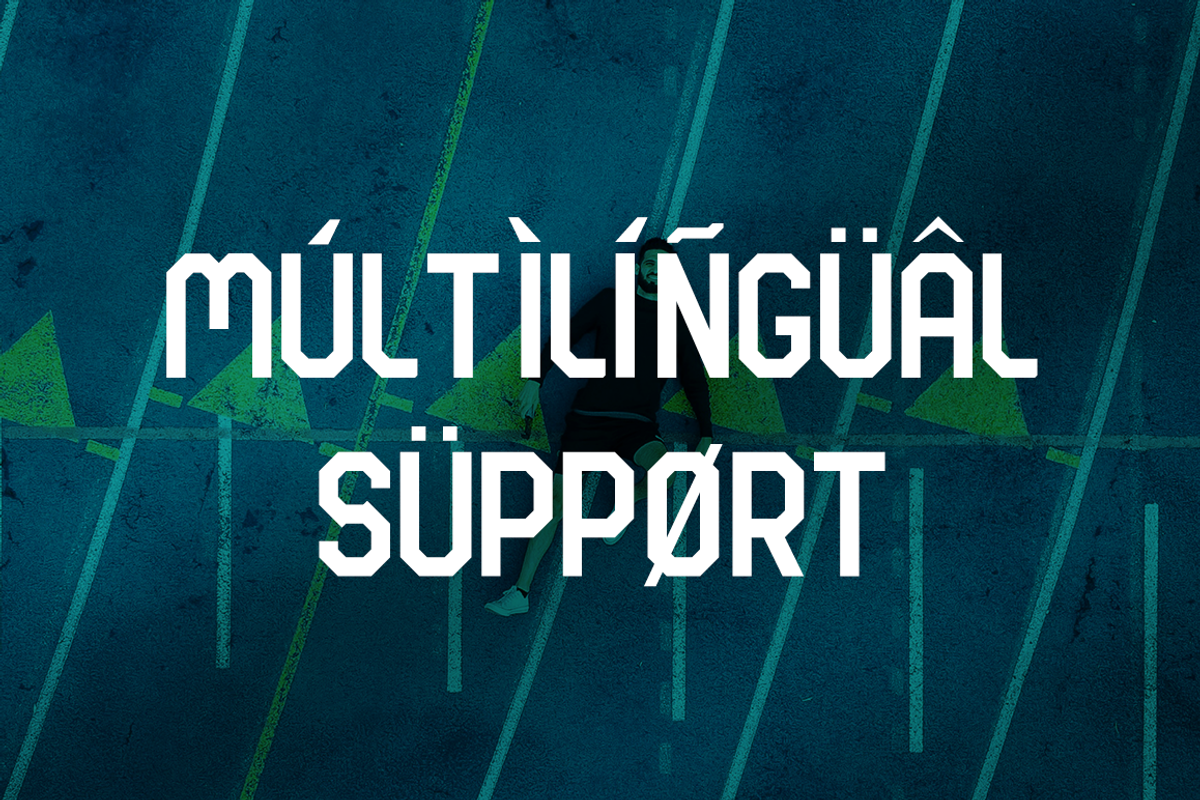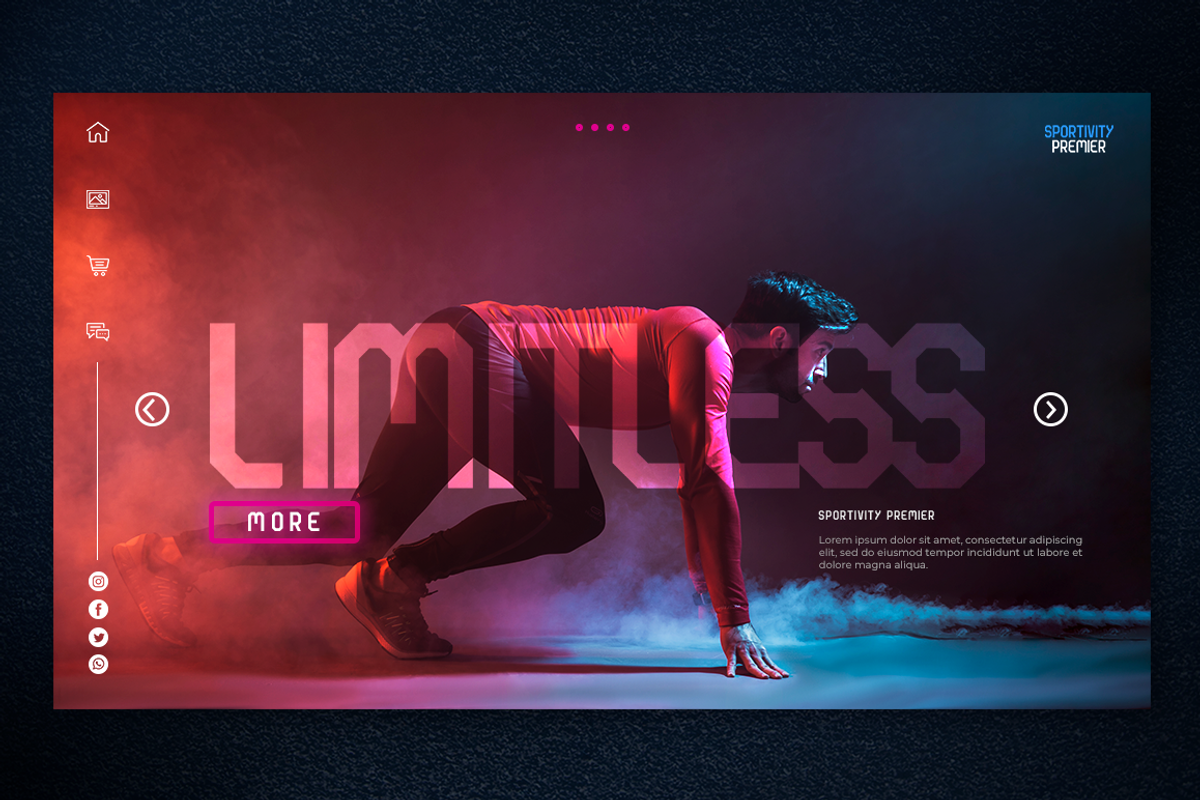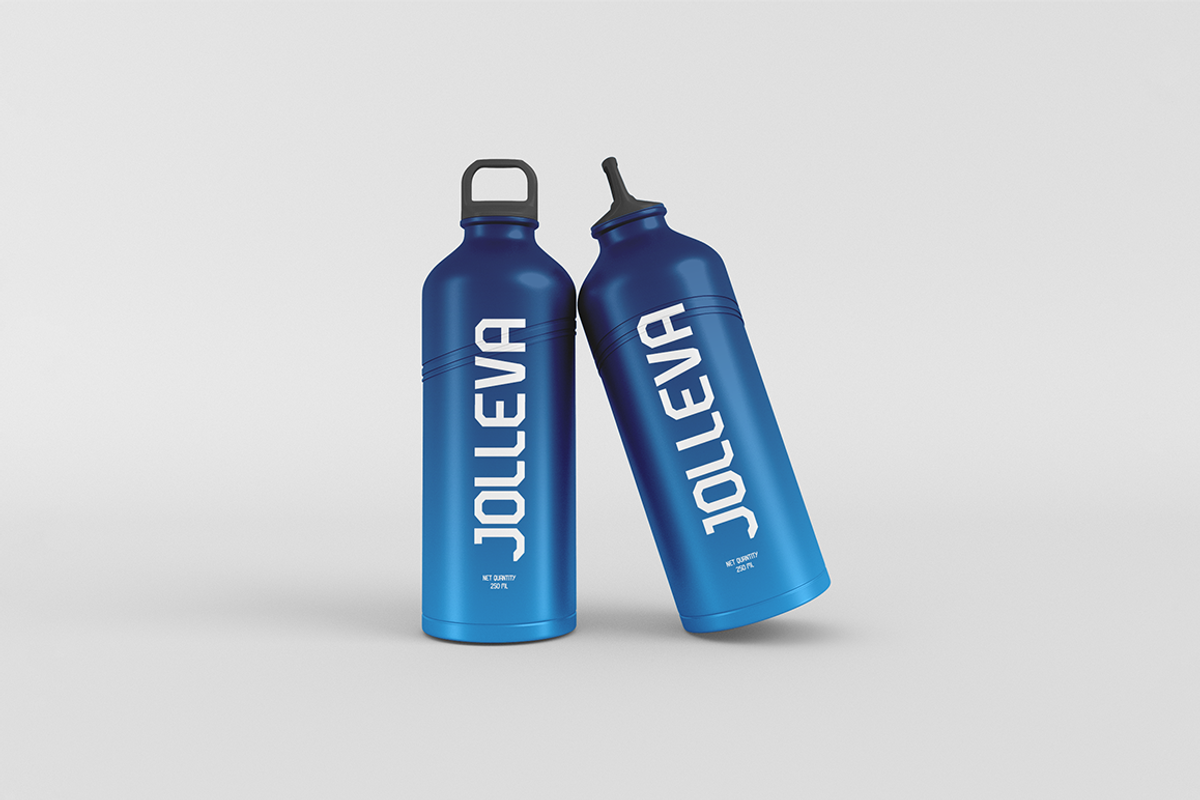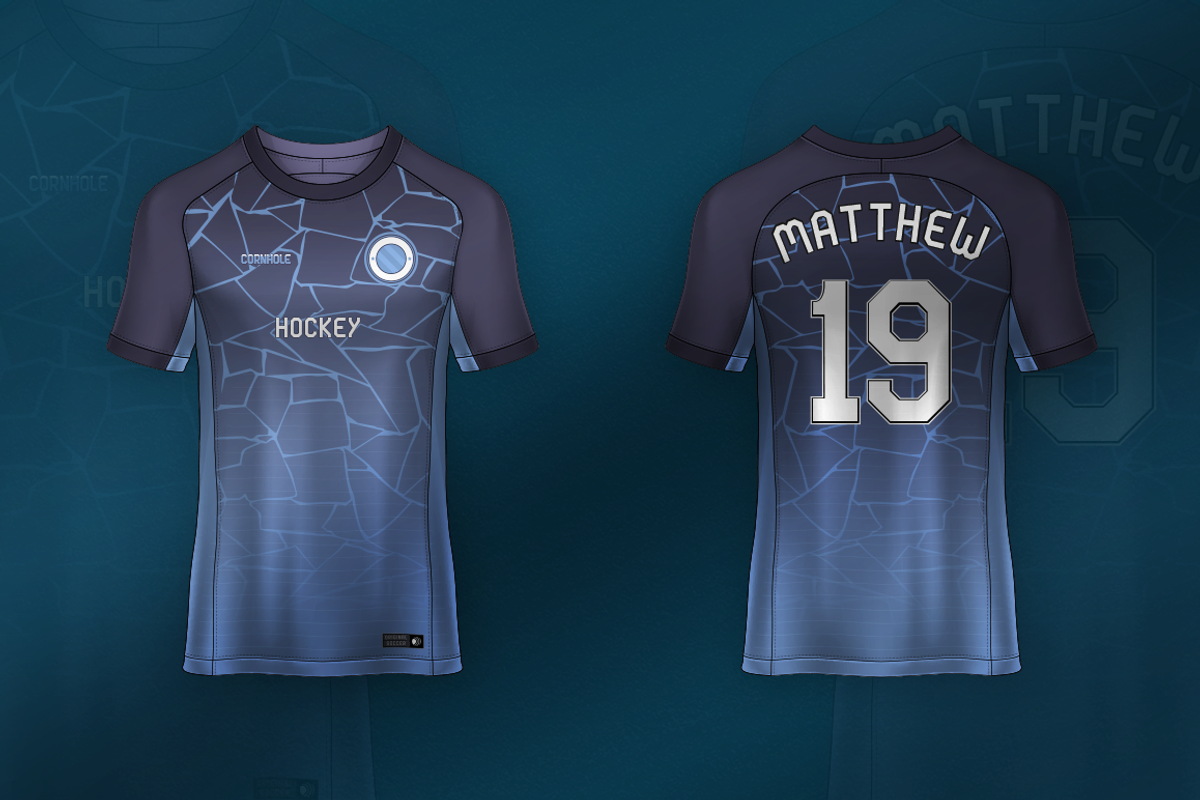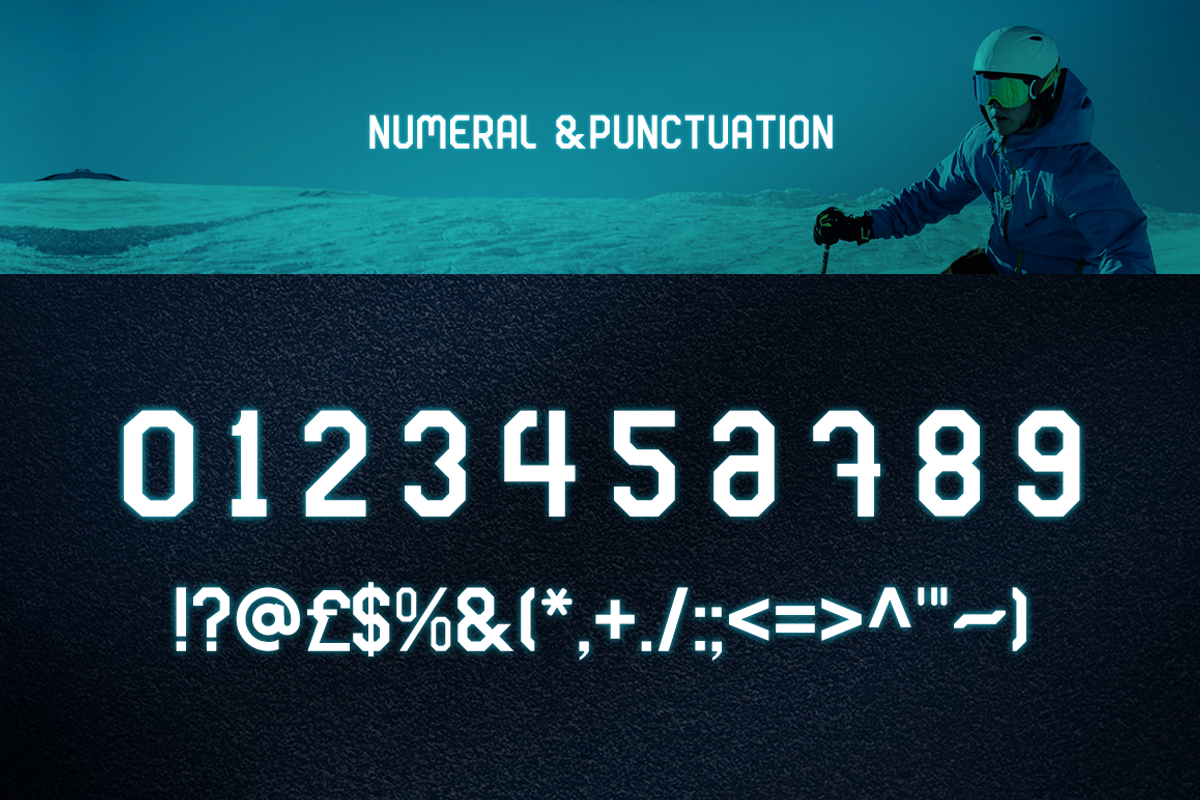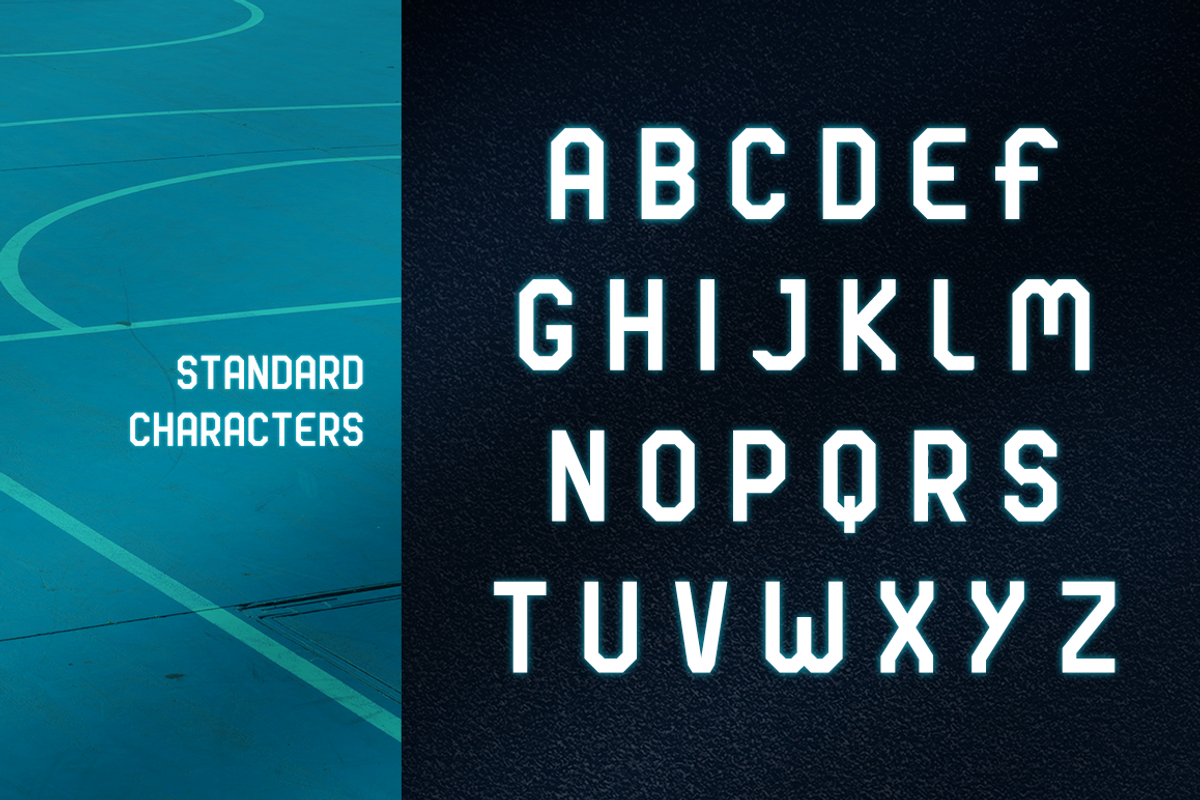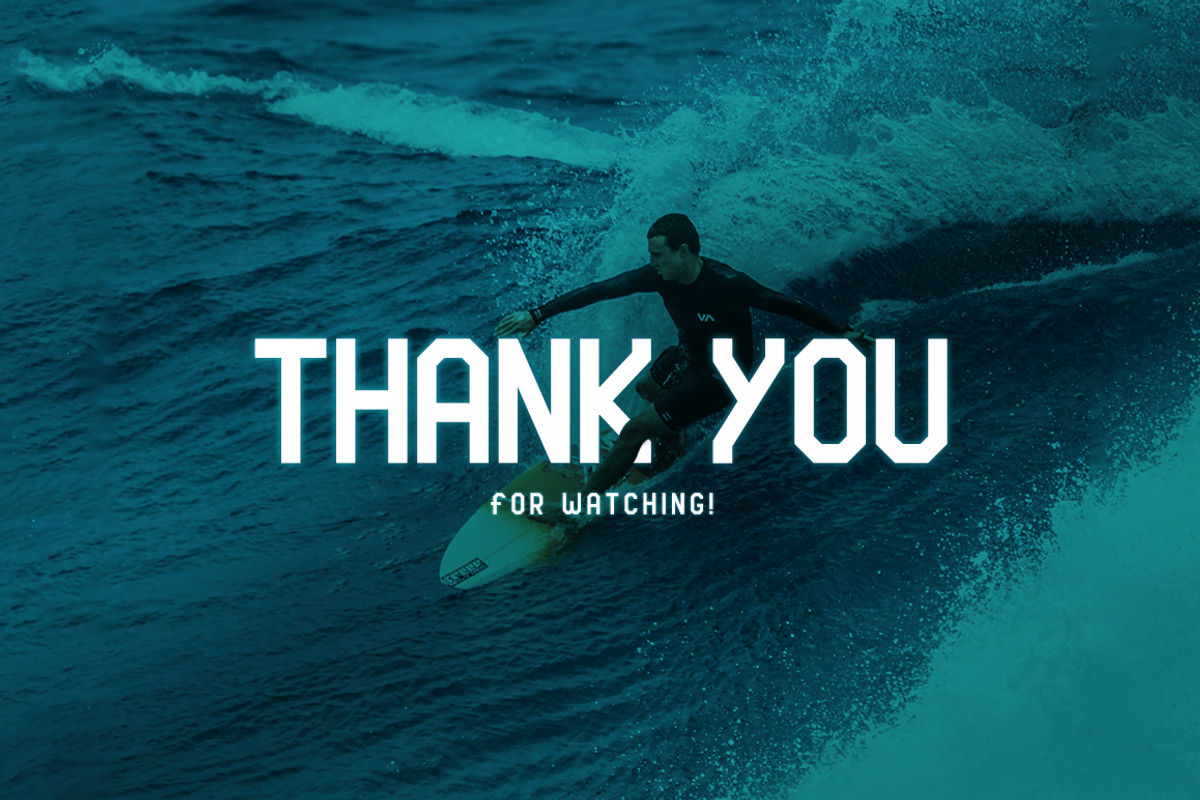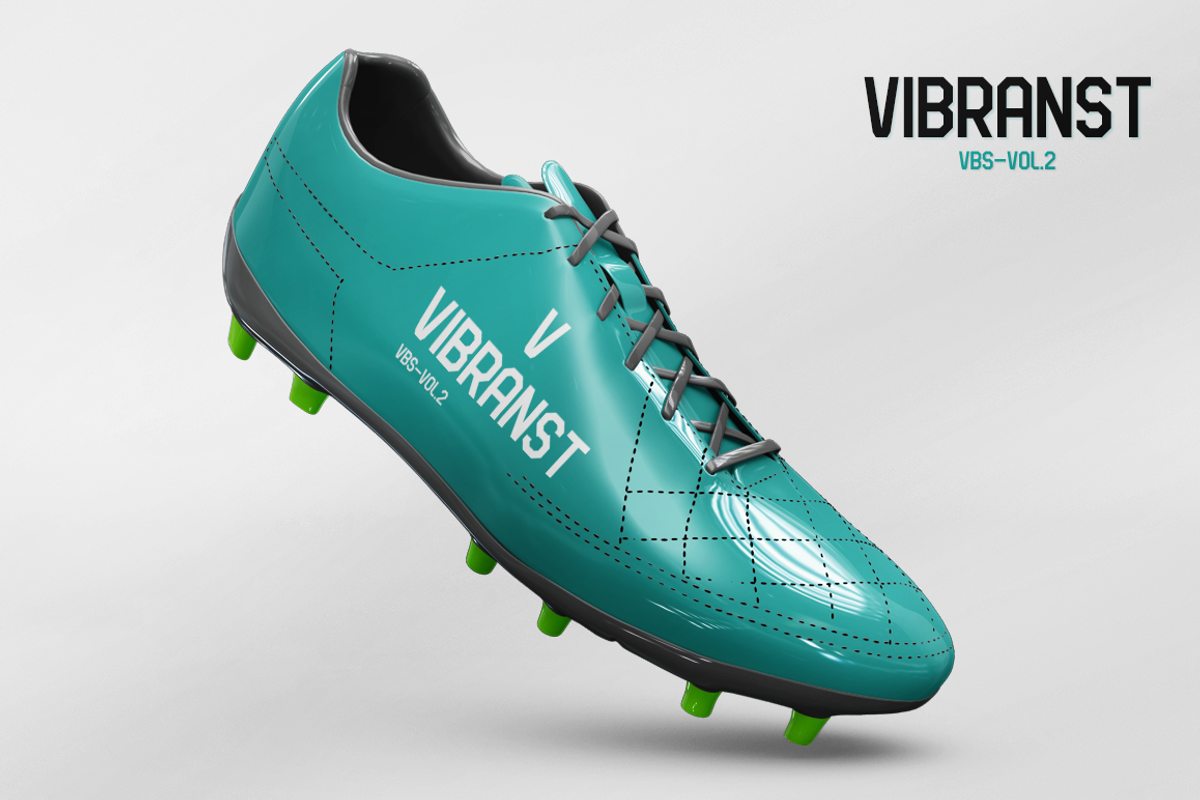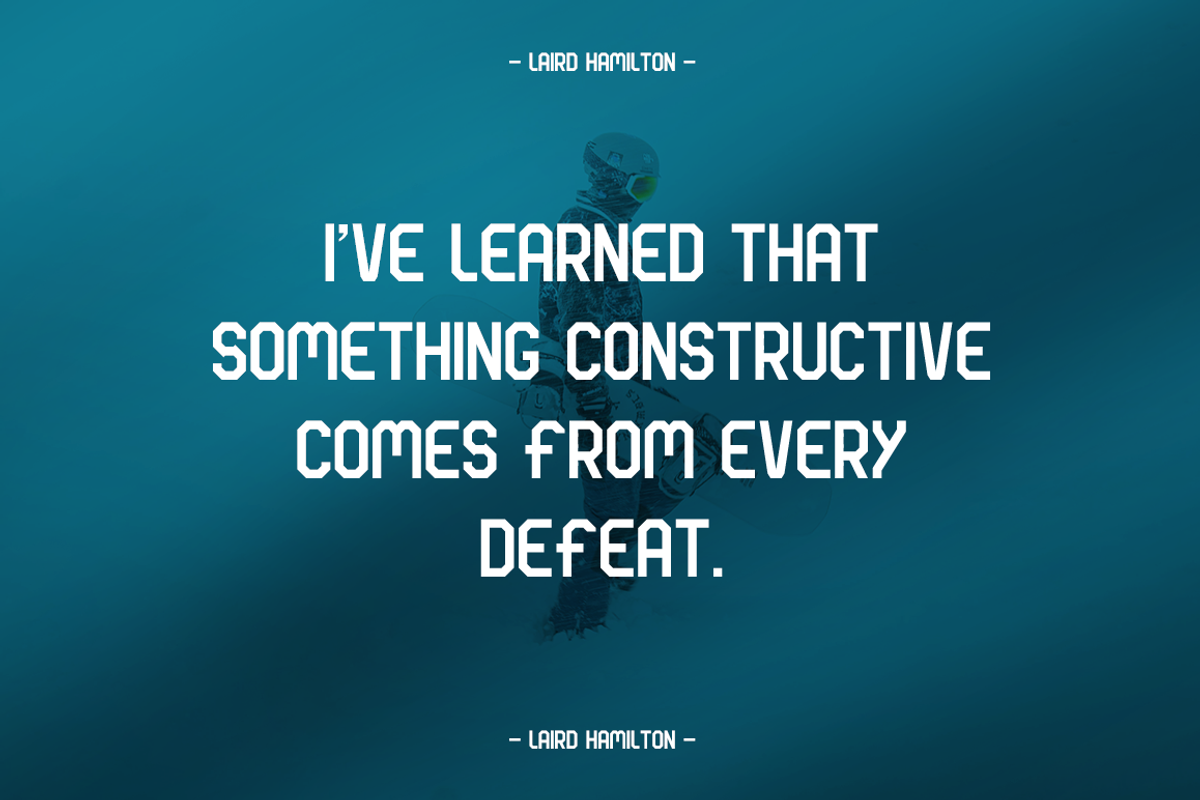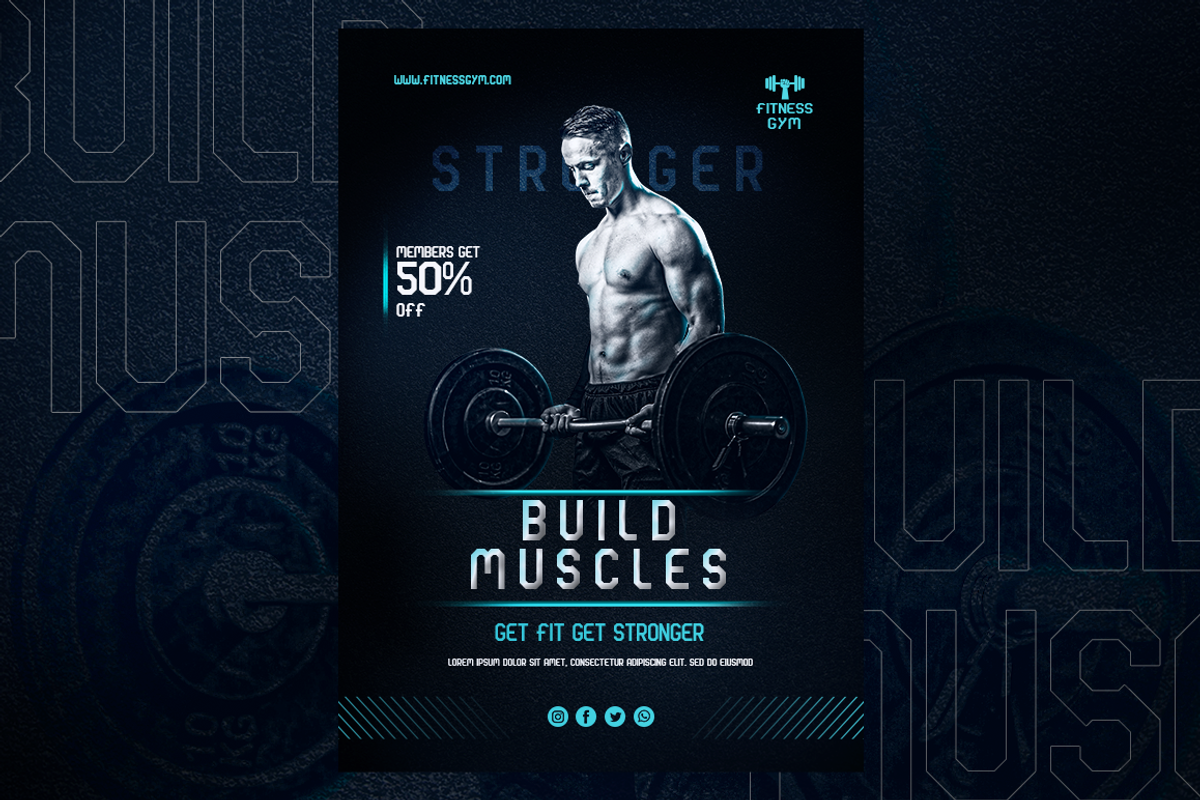
Monstalt - Sport Font
Monstalt is an elegant and modern sans serif font. It can easily match your various projects, so add it to your creative ideas and watch how it makes them stand out.